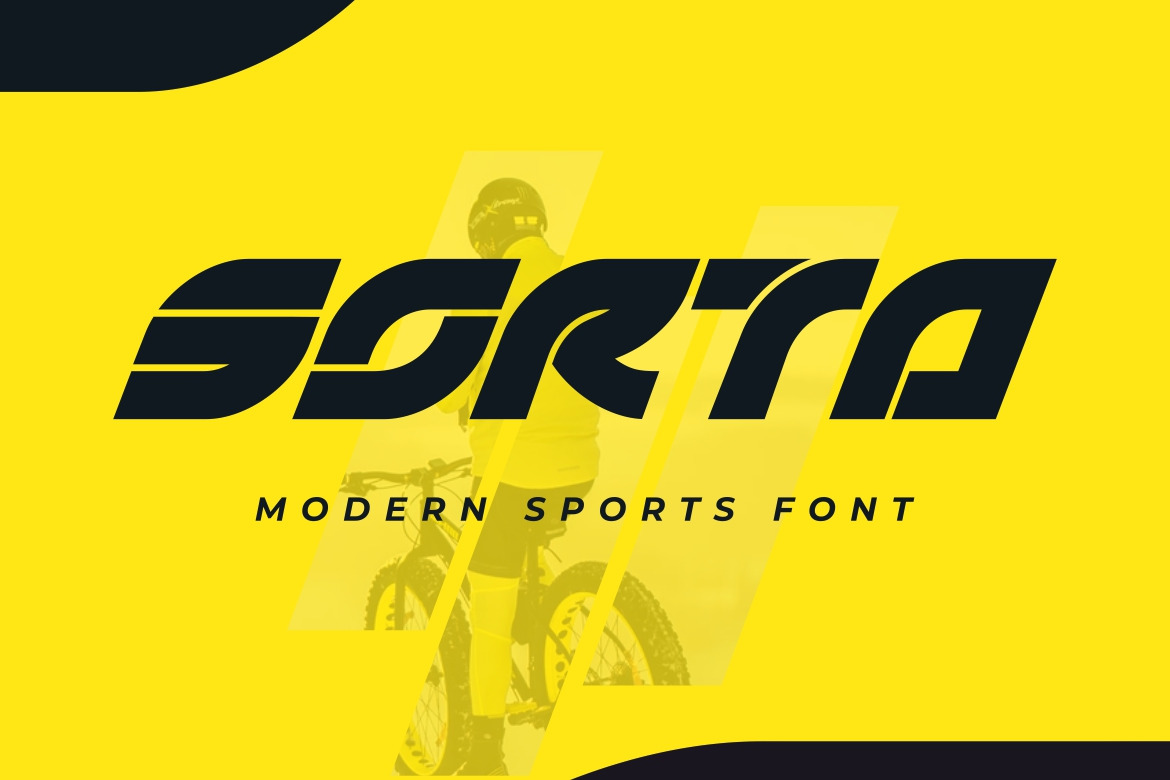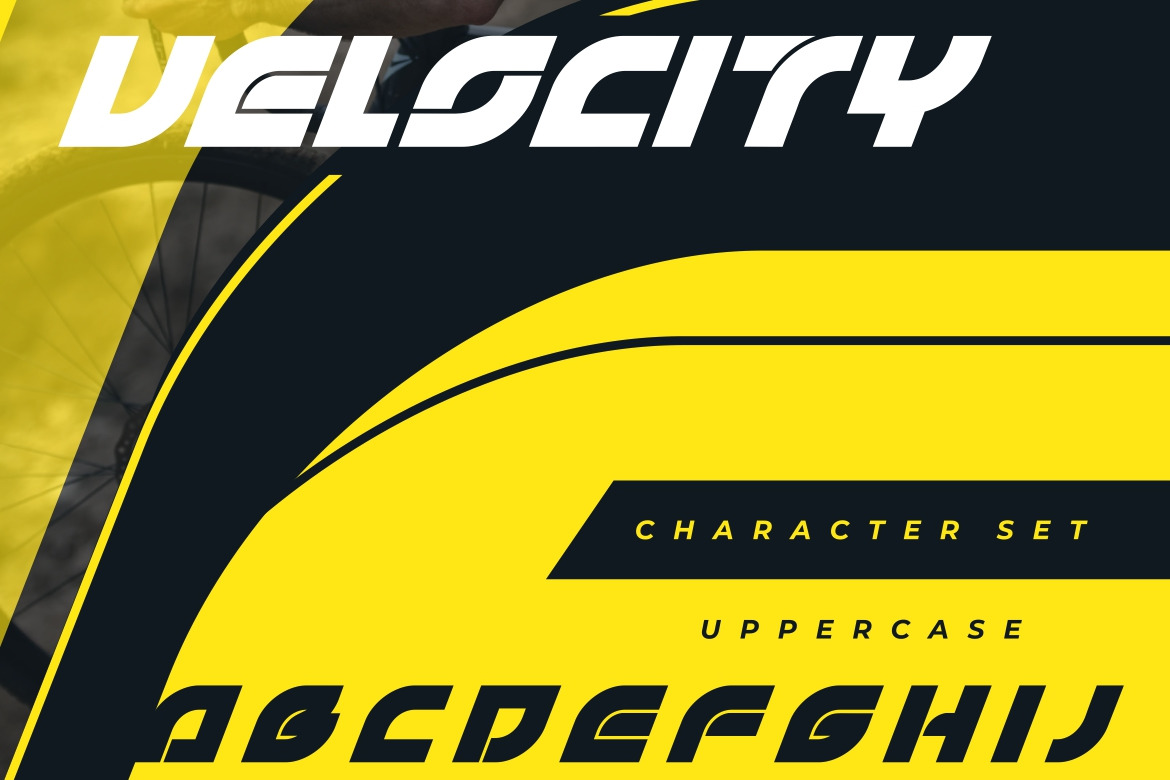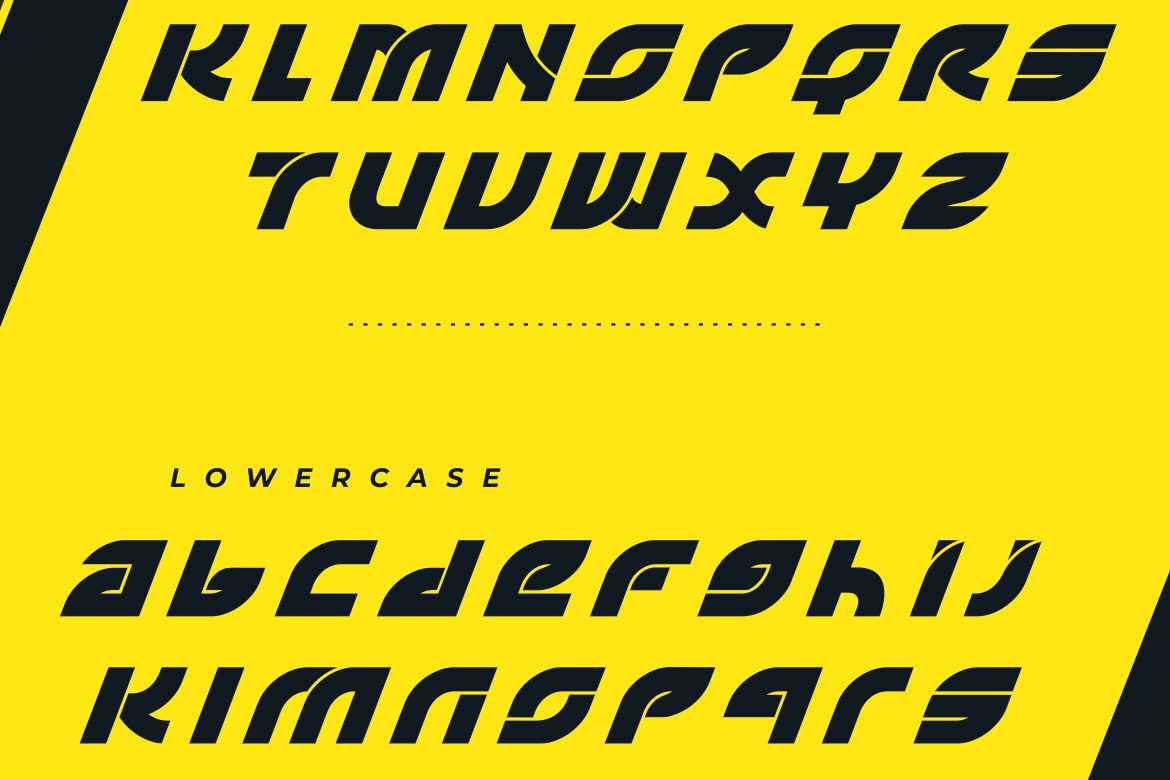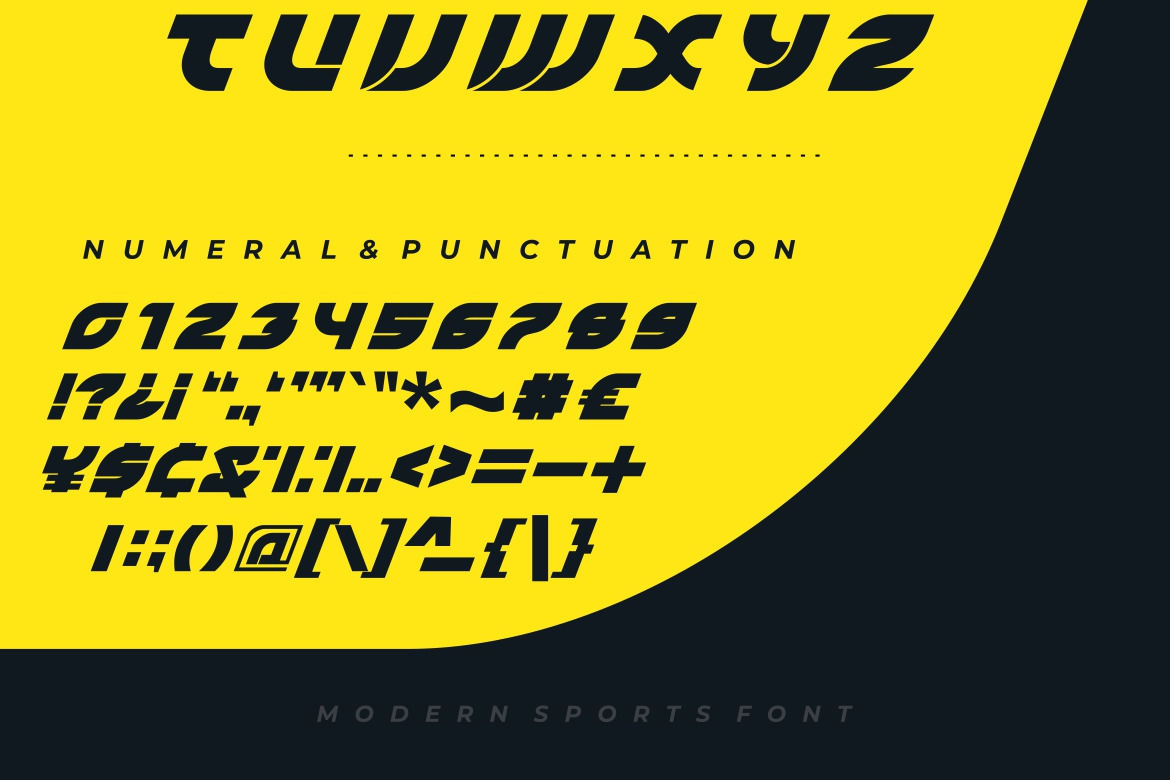
Sorta Font
Introducing, SORTA – Modern logo typeface!
SORTA is a modern bold display font with unique style that will make your design looks hi-tech and modern. You can use this font for any purpose, especially to make logotype like a cycling sports logo brand.